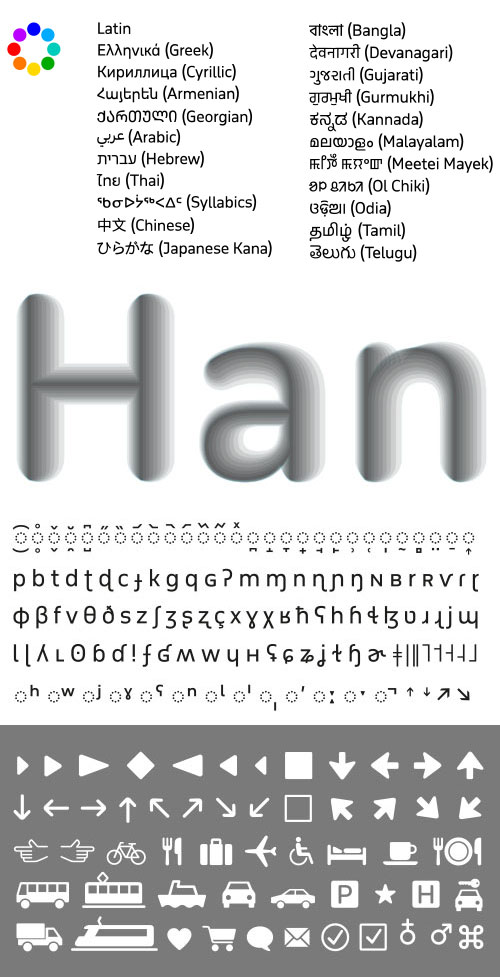
October Latin & October Pro - Multilingual
- October is a warm, geometric typeface with soft corner terminals. At its core, it is a rational, utilitarian font family, but its rounded stroke endings lend it a friendlier character, useful for signage, branding, headlines and even editorial purposes.
Design Concept
- October is a typeface family with fully rounded corner terminals and approachable character, suitable for complex signage and information display, as well as branding projects. October is a highly functional typeface for complex information display, and has distinct and unambiguous lettershapes that aid legibility and a soft and friendly character that makes the presented information appealing and emotionally accessible to a wide public.
A Truly Global Font
- October is part of Typotheque’s Global Font collection supporting hundreds of languages and various writing scripts. In the long term, it is intended that October will support all living languages with a community of active speakers. Currently, October supports the following writing scripts: Arabic, Armenian, Bangla, Canadian Syllabic, Chinese, Cyrillic, Devanagari, Georgian, Greek, Gujarati, Gurmukhi, Hebrew, IPA (International Phonetic Alphabet), Japanese, Kannada, Korean, Latin, Malayalam, Odia, Ol Chiki, Tamil, Telugu, and Thai. We are working on extending the font family to other writing scripts, and this level of language support makes October an unprecedented design project.
Three Widths
- October is available in three logical widths, which offer a complete typographic palette for the most demanding designers. The condensed and compressed versions solve the problem of setting long words and sentences next to short words set in the regular width version of October. A variable font version allows you to choose any width in between.
Phonetic script
- October also supports the IPA (International Phonetic Alphabet), featuring a comprehensive repertoire of glyphs for the transcription of linguistic data. The font also covers First Nations roman orthographies of Indigenous languages spoken in Canada (Wakashan, Algonquian, Salishan, Tsimshianic, Iroquoian, and Eskaleut languages) and, additionally, it covers African Indigenous roman orthographies for languages such as Hausa, Igbo, Akan, Kabiye, Ewe, etc. The IPA support is embedded inside the Latin fonts and every other language version, so you don’t need a separate licence for it.
Symbols & Arrows
- October is ideally suited to information signage and wayfinding projects, and includes a collection of transportation and travel-related signs, symbols, icons, and various sets of arrows. We are continuing to work on expanding this collection of icons for other uses.
Stylistic Alternates
- October typeface can be personalised with alternative forms of letters available as Stylistic Sets, controllable via OpenType layout feature settings in your applications, or you can build a custom version of the fonts by using these stylistic alternates in a default position.
Numeral Styles
- Each weight of October includes nine different kinds of numerals. Proportional lining figures come as default figures in October. It also, however, includes old-style figures, tabular numerals (both lining and old-style), small caps numerals, superior, inferior, circled and circled inverted numerals. For running text, old-style figures work best; for use in capital setting, use lining figures, and with the small caps, choose the specially designed Small Caps numerals applicable via OpenType layout features. When you take a licence for this font, you can choose your own default numeral variant.